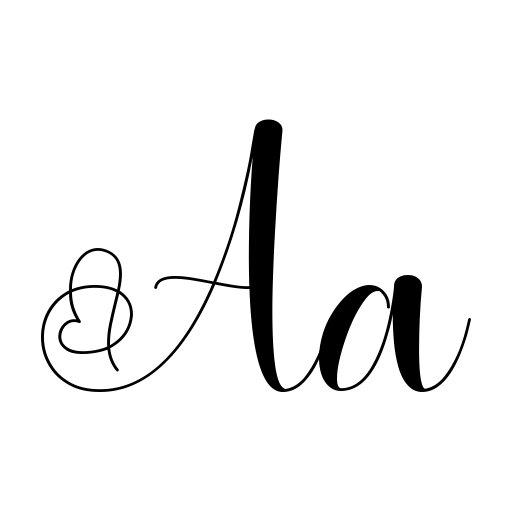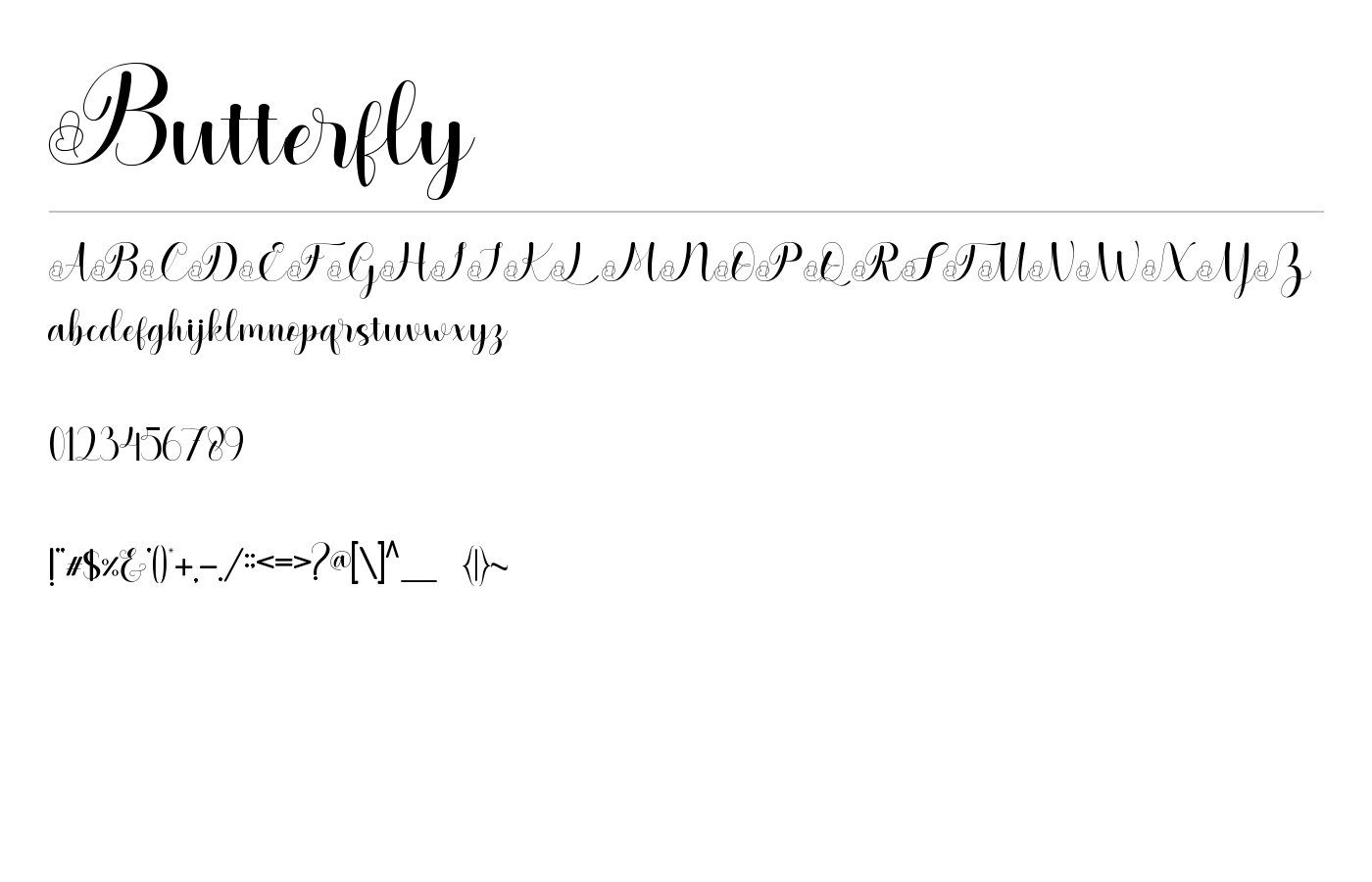
Butterfly Font is an elegant script typeface characterized by its delicate, flowing strokes and decorative swirls on uppercase letters. With its high contrast between thin and thick lines and graceful, upright letterforms, it evokes a sophisticated, romantic feel perfect for luxury branding, invitations, and feminine-focused designs. This font shines in headlines and logos where a refined, stylish impression is desired.
Butterfly Font
About Butterfly Font
| Font family | Butterfly Font |